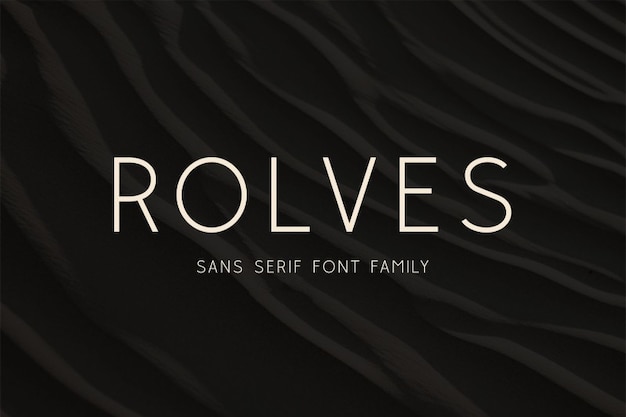
Rolves Font
It is the epitome of modern simplicity with an added cool factor. This font boasts clean lines and a minimalist design that exudes a contemporary vibe. Whether you're creating sleek branding or chic editorial layouts, "Rolves" brings a touch of effortless coolness to your projects. It's the perfect choice for those who appreciate a simple yet stylish approach to design.